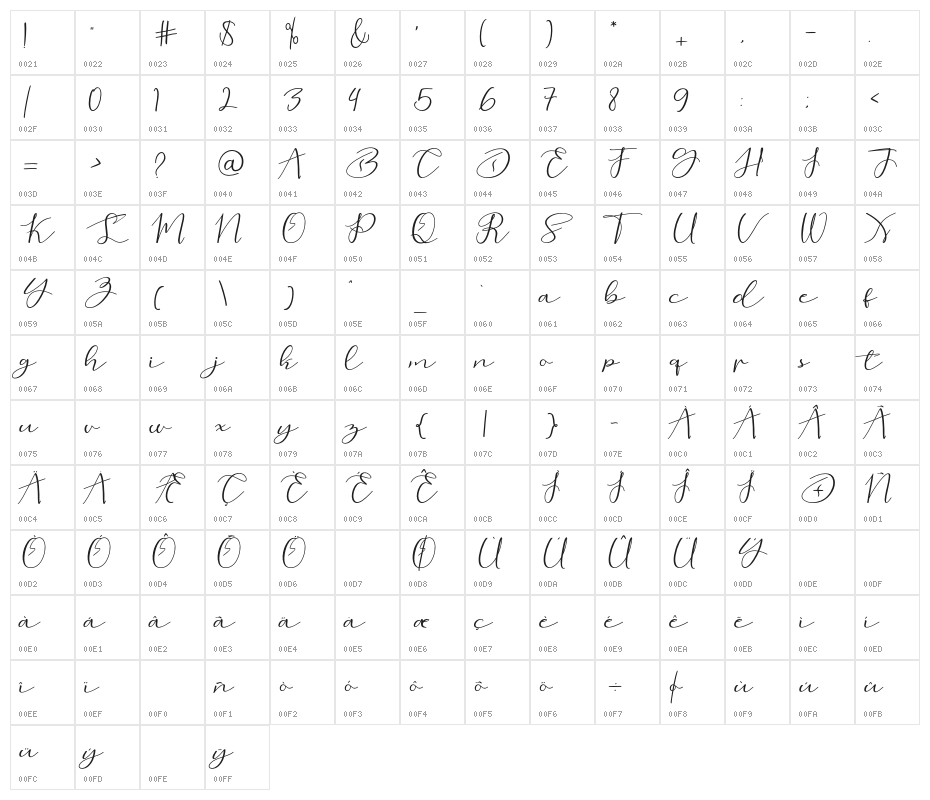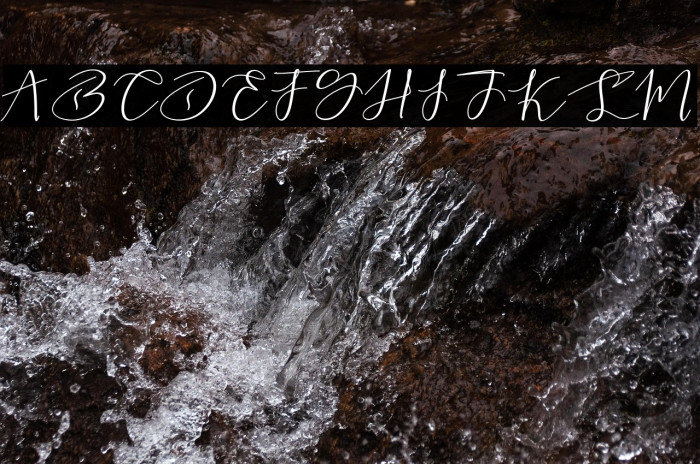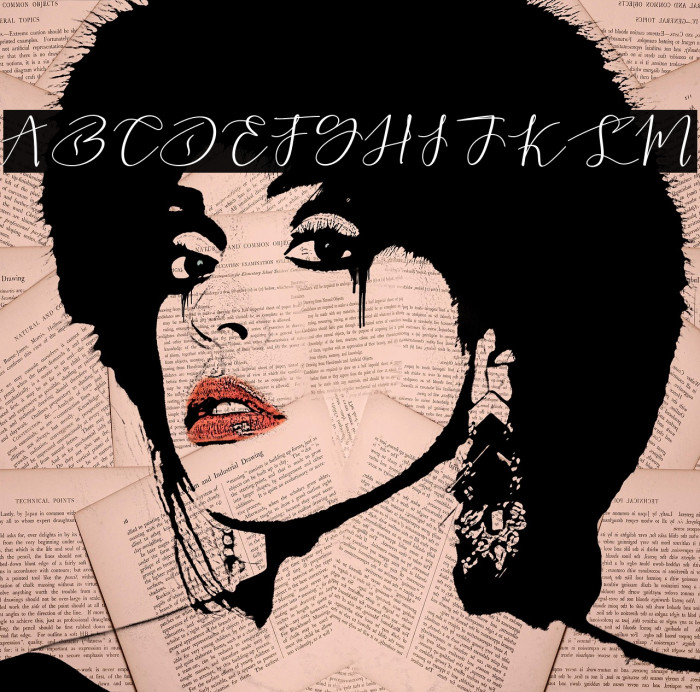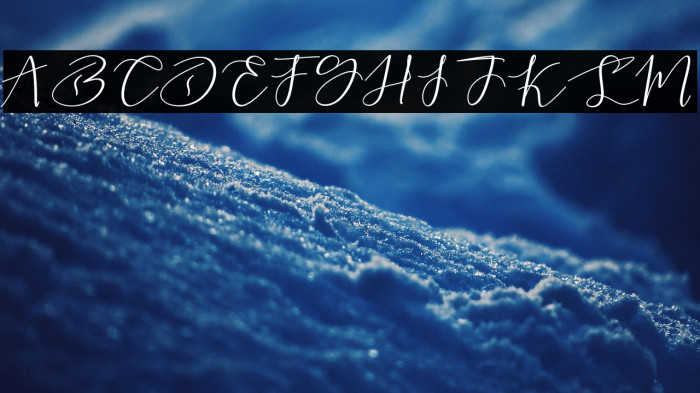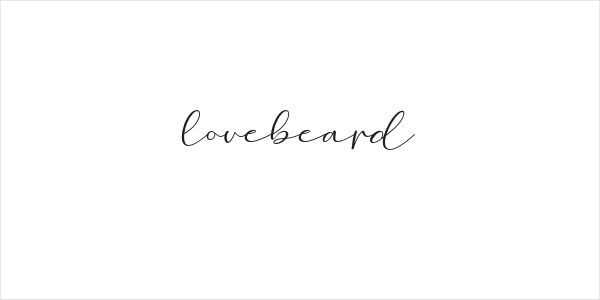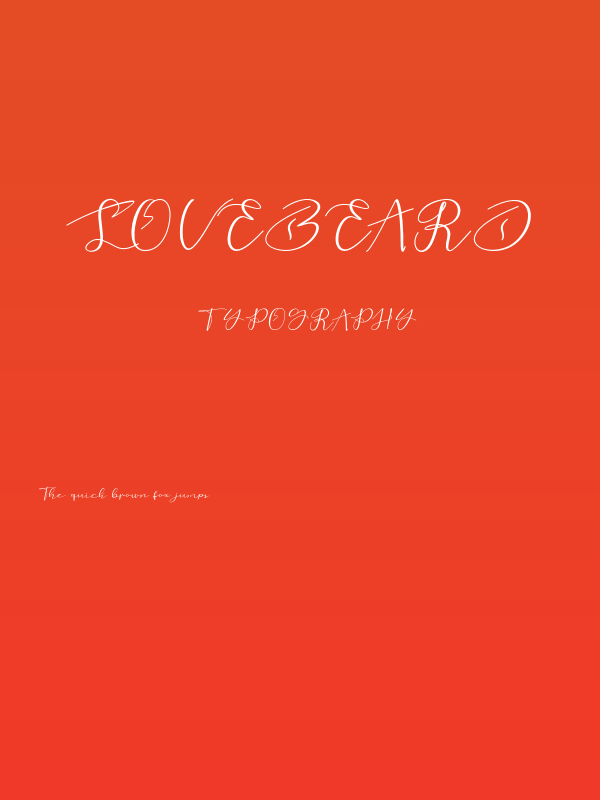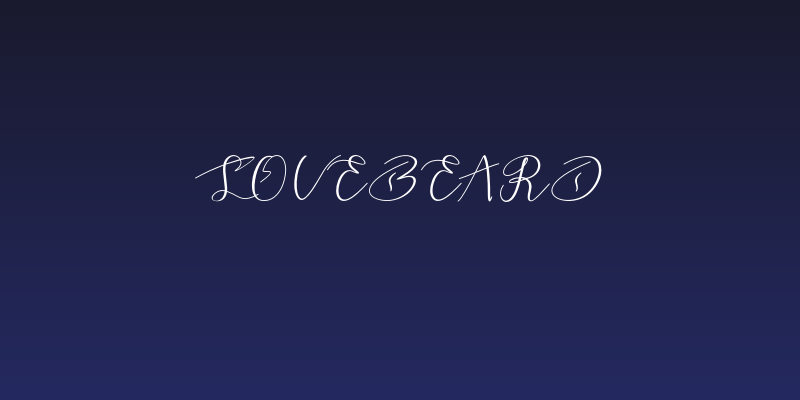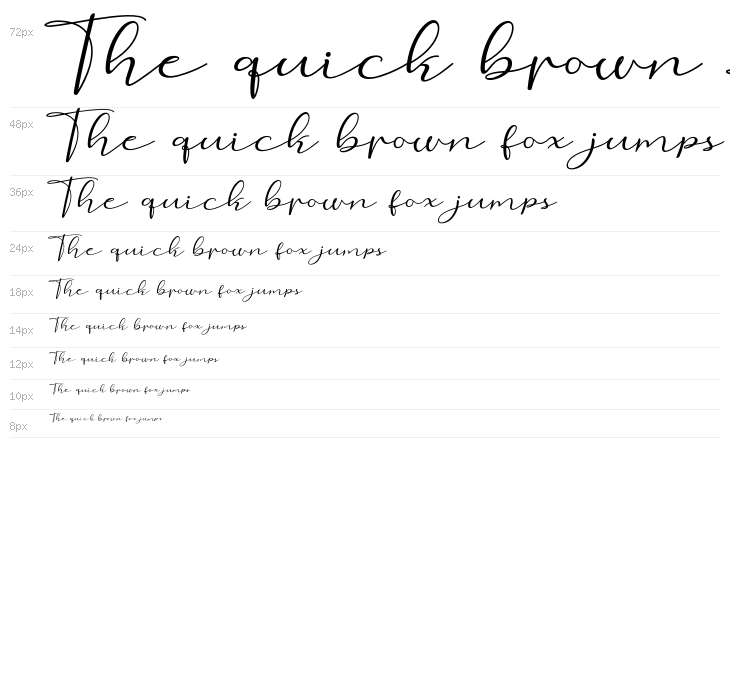
lovebeard Font
lovebeard Description
This font features a flowing, cursive style that exudes elegance and sophistication. The uppercase letters are gracefully connected, with each character exhibiting a unique flair that enhances its handwritten appearance. The lowercase letters maintain a consistent fluidity, with smooth curves and loops that create a harmonious visual rhythm. The numerals are distinct yet complement the overall script style, adding a touch of whimsy. Special characters are thoughtfully designed to match the font's aesthetic, ensuring seamless integration in various contexts. The overall impression is one of refined artistry, making it suitable for projects that require a personal, artistic touch.
| Overall Style | Elegant, Artistic |
| Use Case | Logos, Invitations, Personal Branding |
| Proposed Projects | Ideal for wedding invitations, greeting cards, personal branding, and artistic projects. |